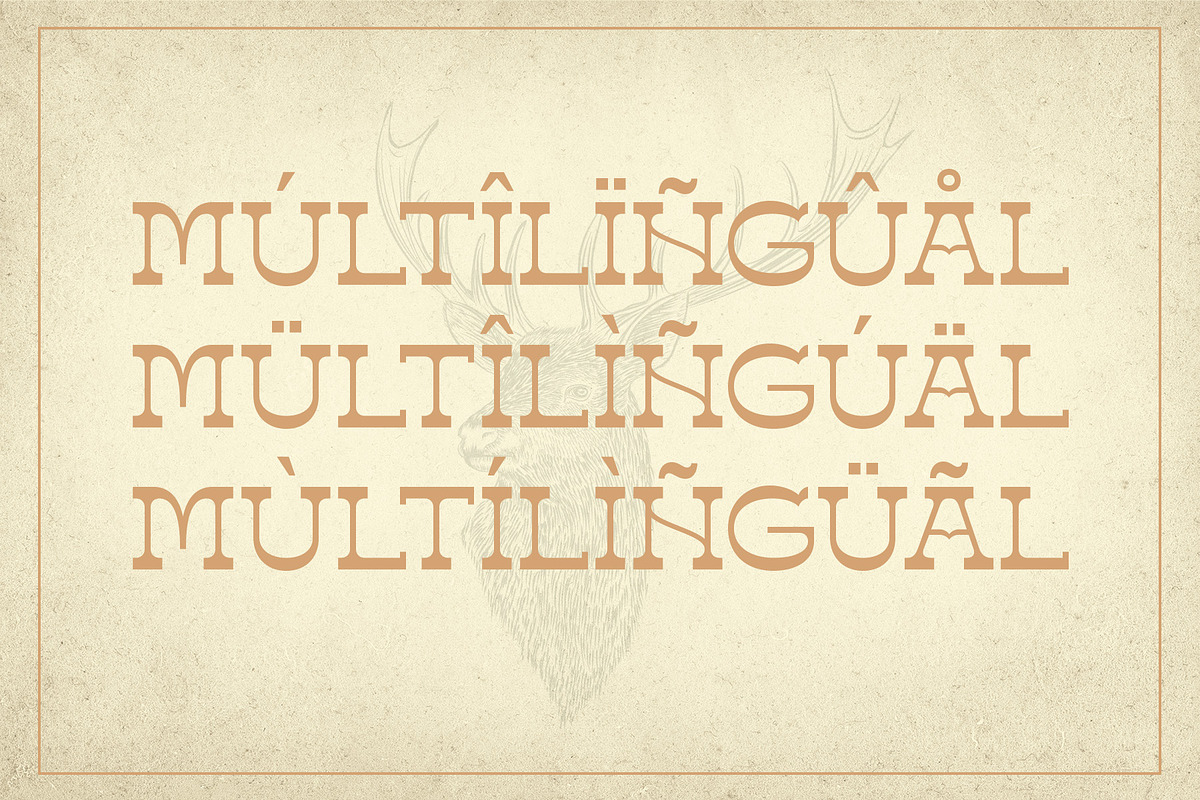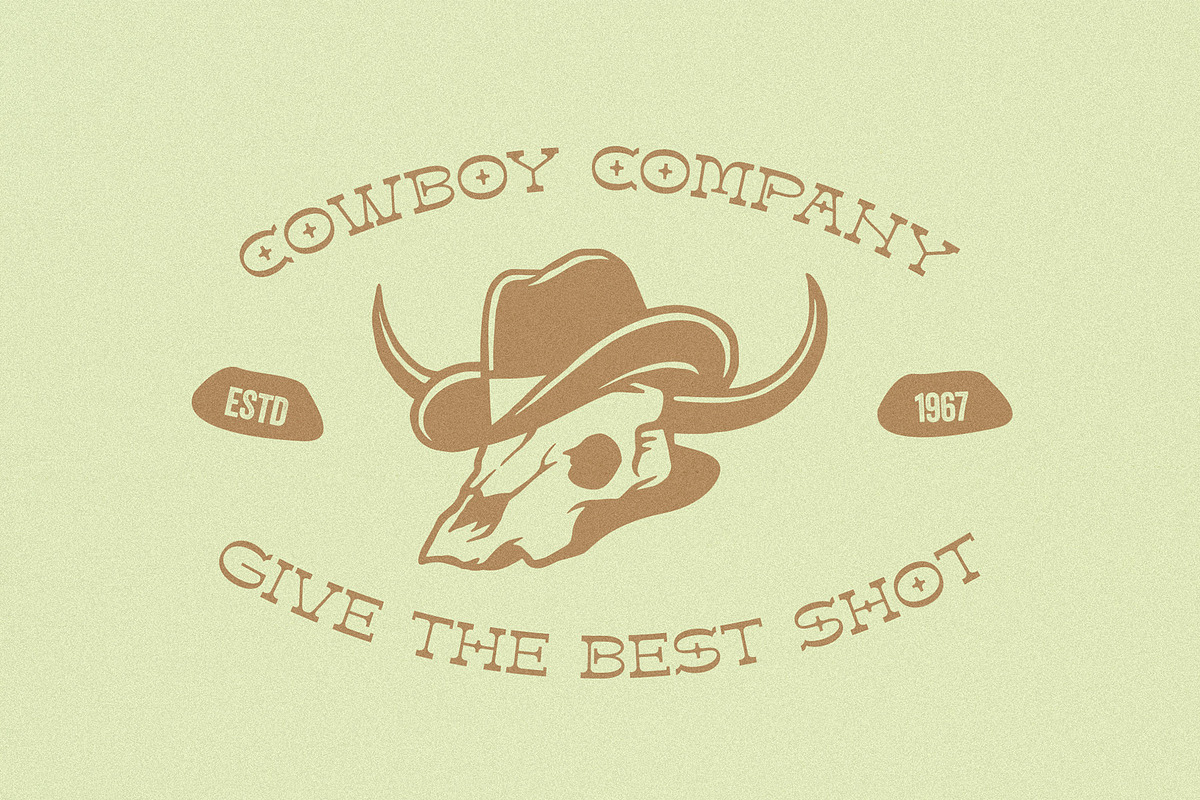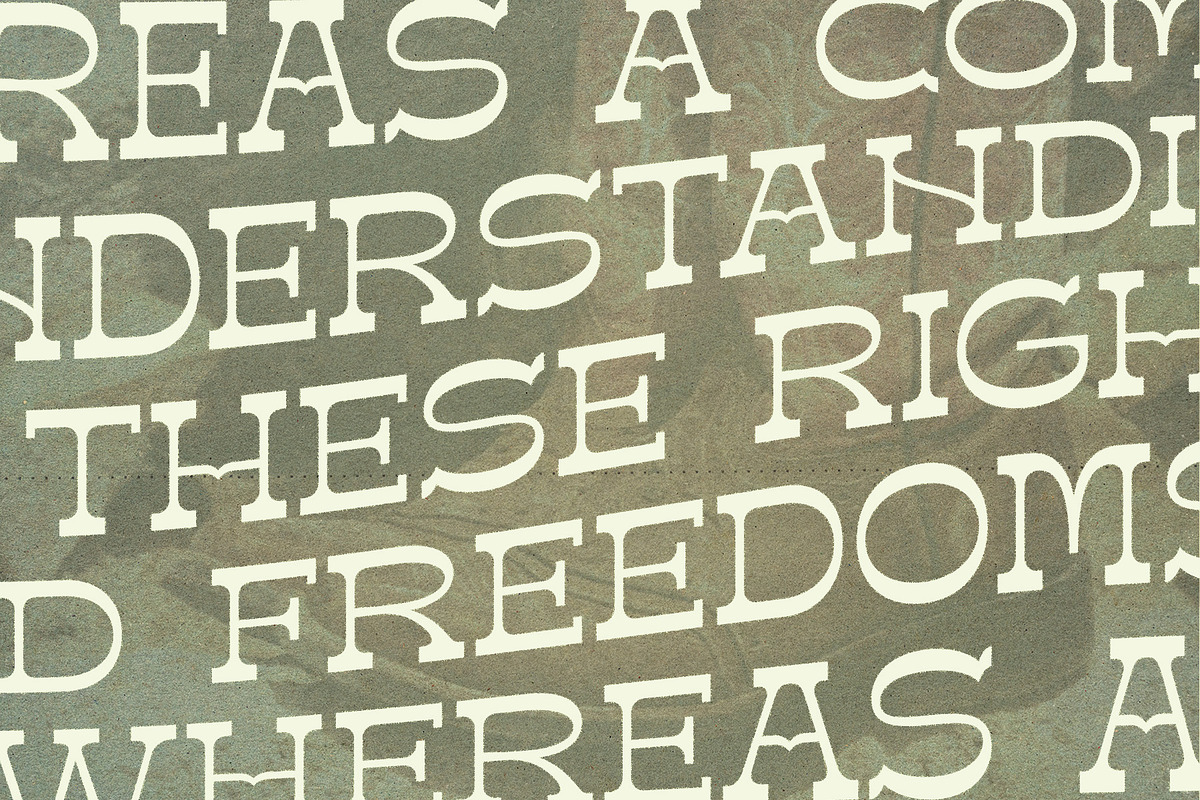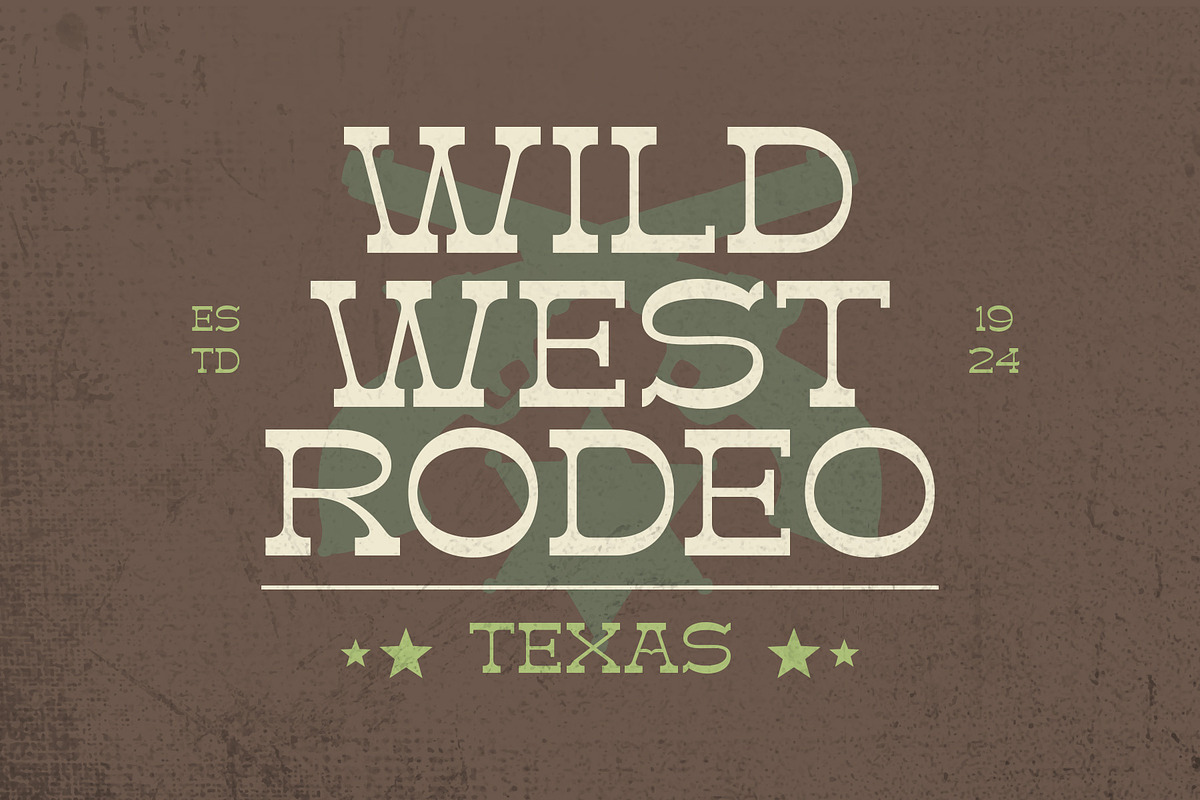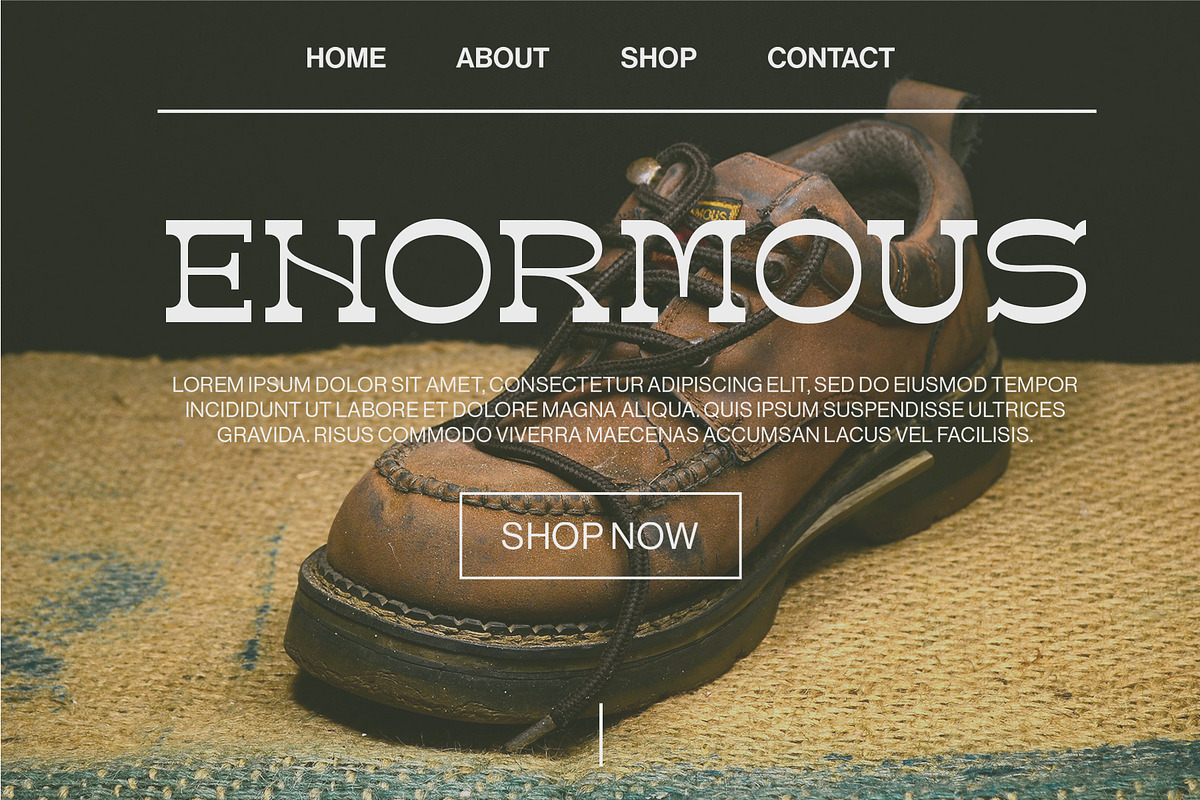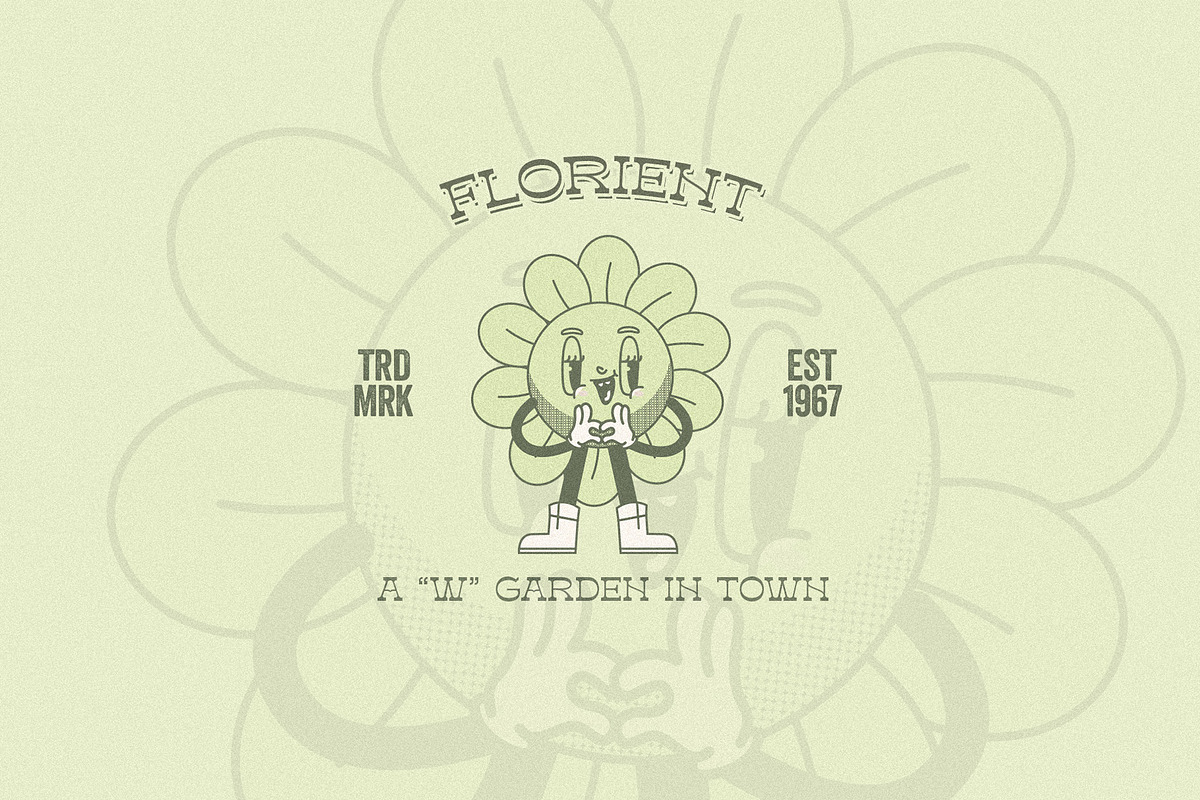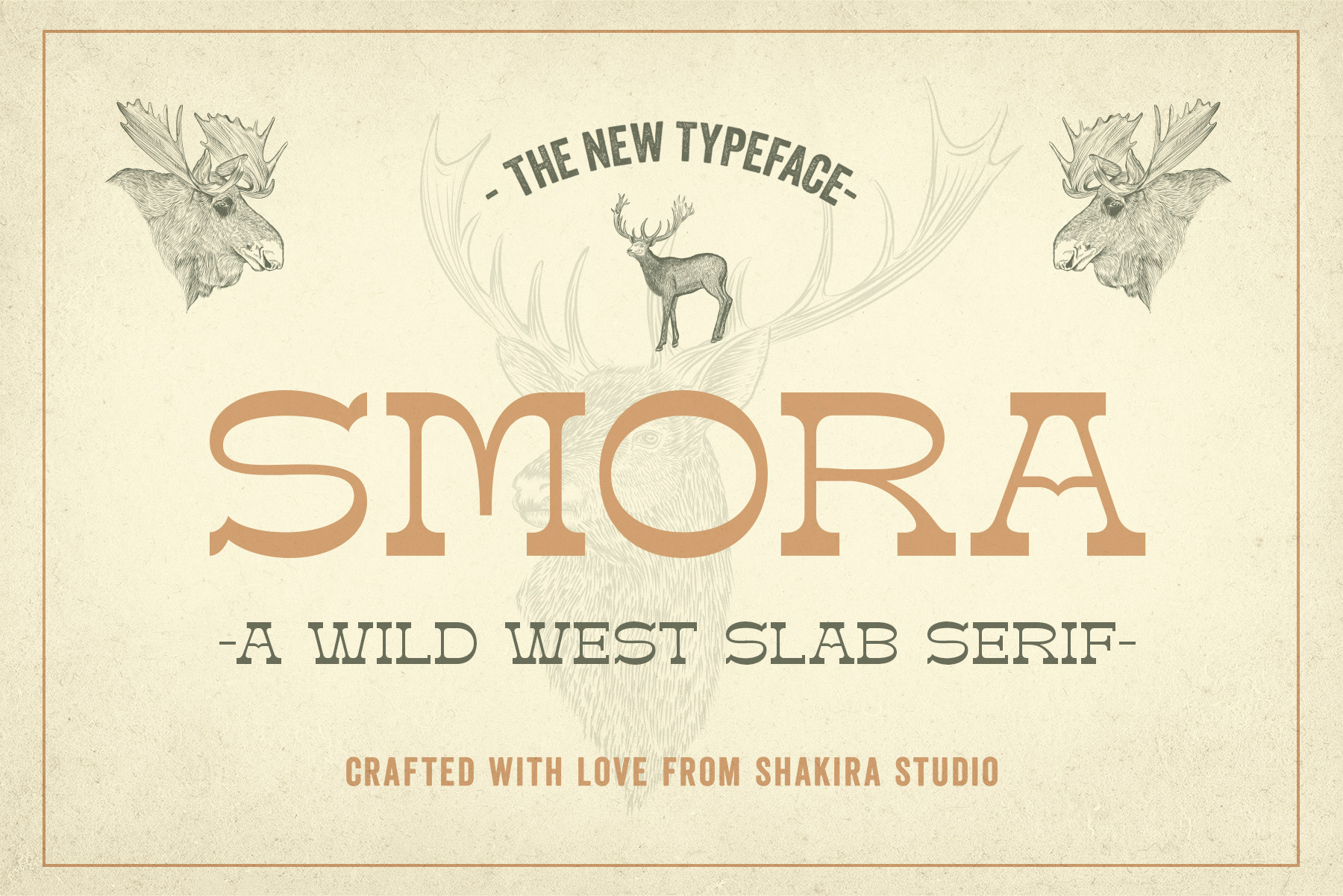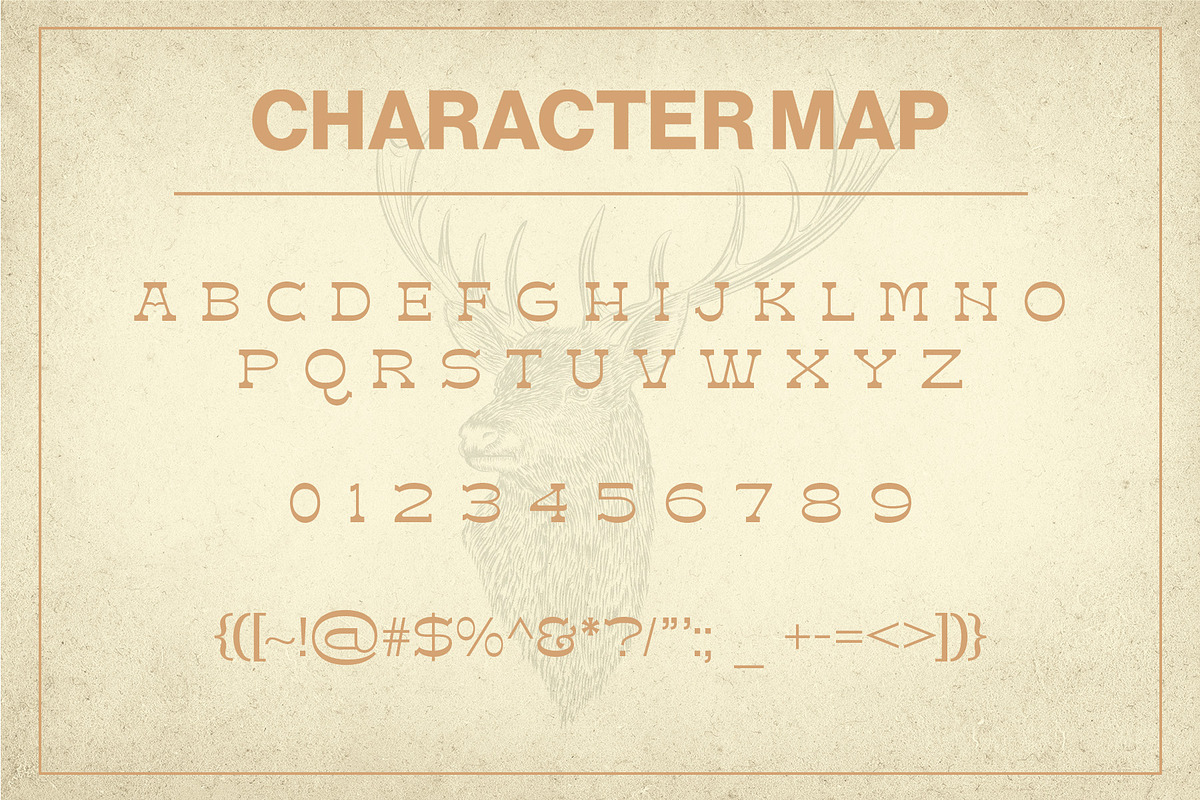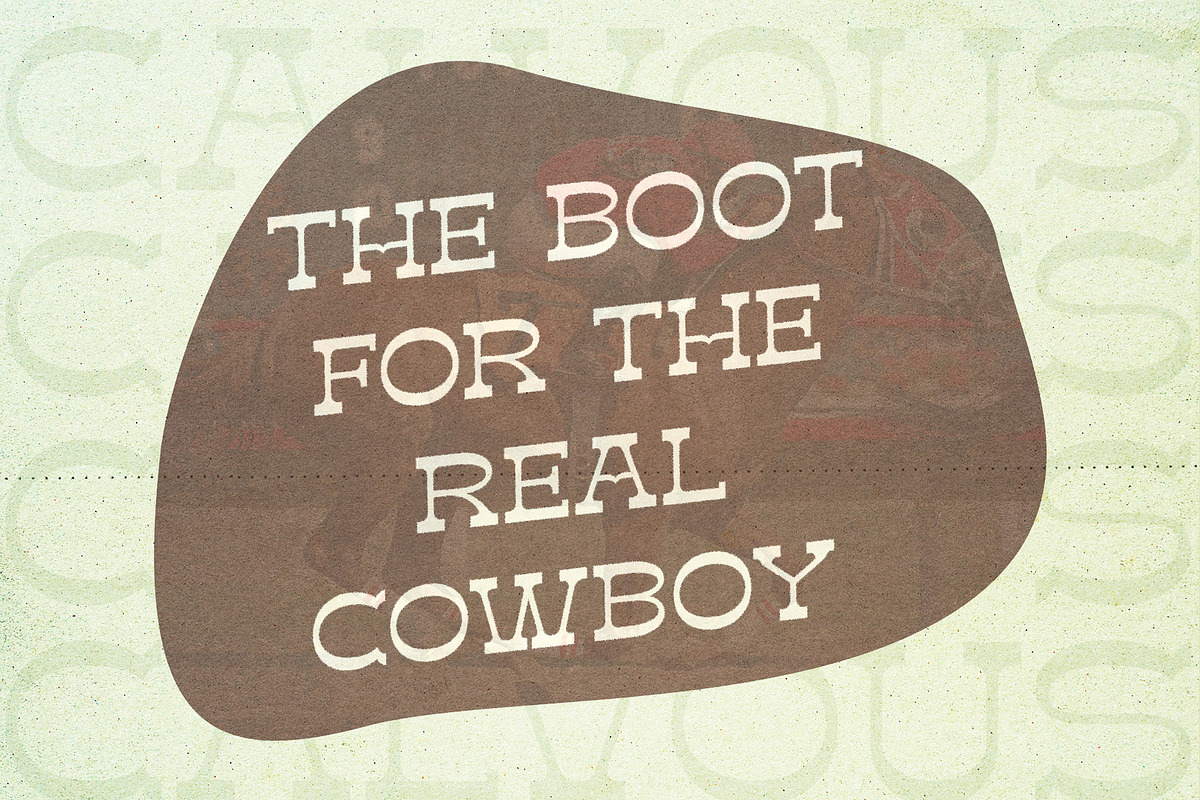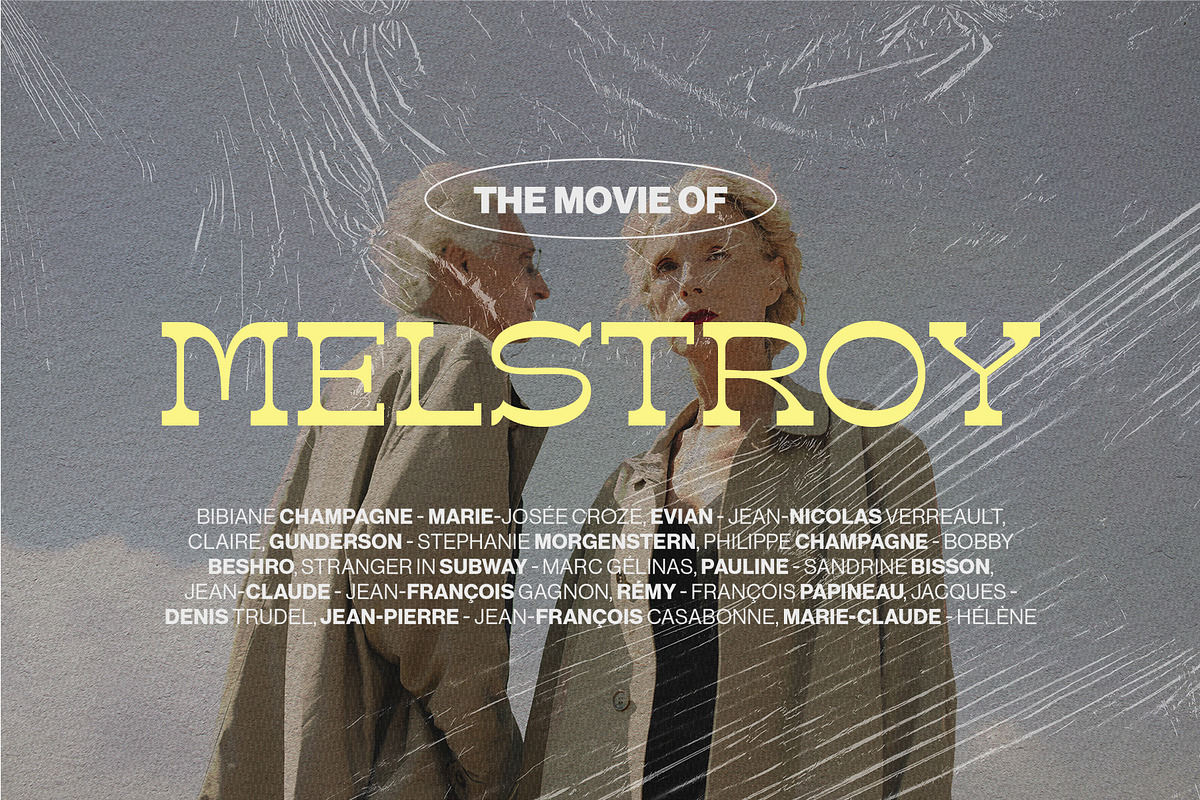
Smora - Western Font
Introducing Smora - The Vintage Retro Slab Serif Western Font!
Smora isn't just a font; it's a journey back to the wild west with a vintage retro twist. Perfectly capturing the essence of #WesternDesign and #TypographyTrends, Smora is your ultimate choice for creating eye-catching and memorable designs.
Crafted for designers seeking to infuse their projects with rugged elegance and nostalgia, Smora's bold slab serif characters and vintage retro aesthetic add a unique flair to any project. Whether you're working on branding, posters, or editorial layouts, Smora brings a sense of timeless adventure and authenticity.
- All Multilingual symbol
- Opentype features ( ligature, alternate )
Multilingual character supports : (Afrikaans, Albanian, Catalan, Croatian, Czech, Danish, Dutch, English, Estonian, Finnish, French, German, Hungarian, Icelandic, Italian, Lithuanian, Maltese, Norwegian, Polish, Portuguese, Slovenian, Spanish, Swedish, Turkish, Zulu)